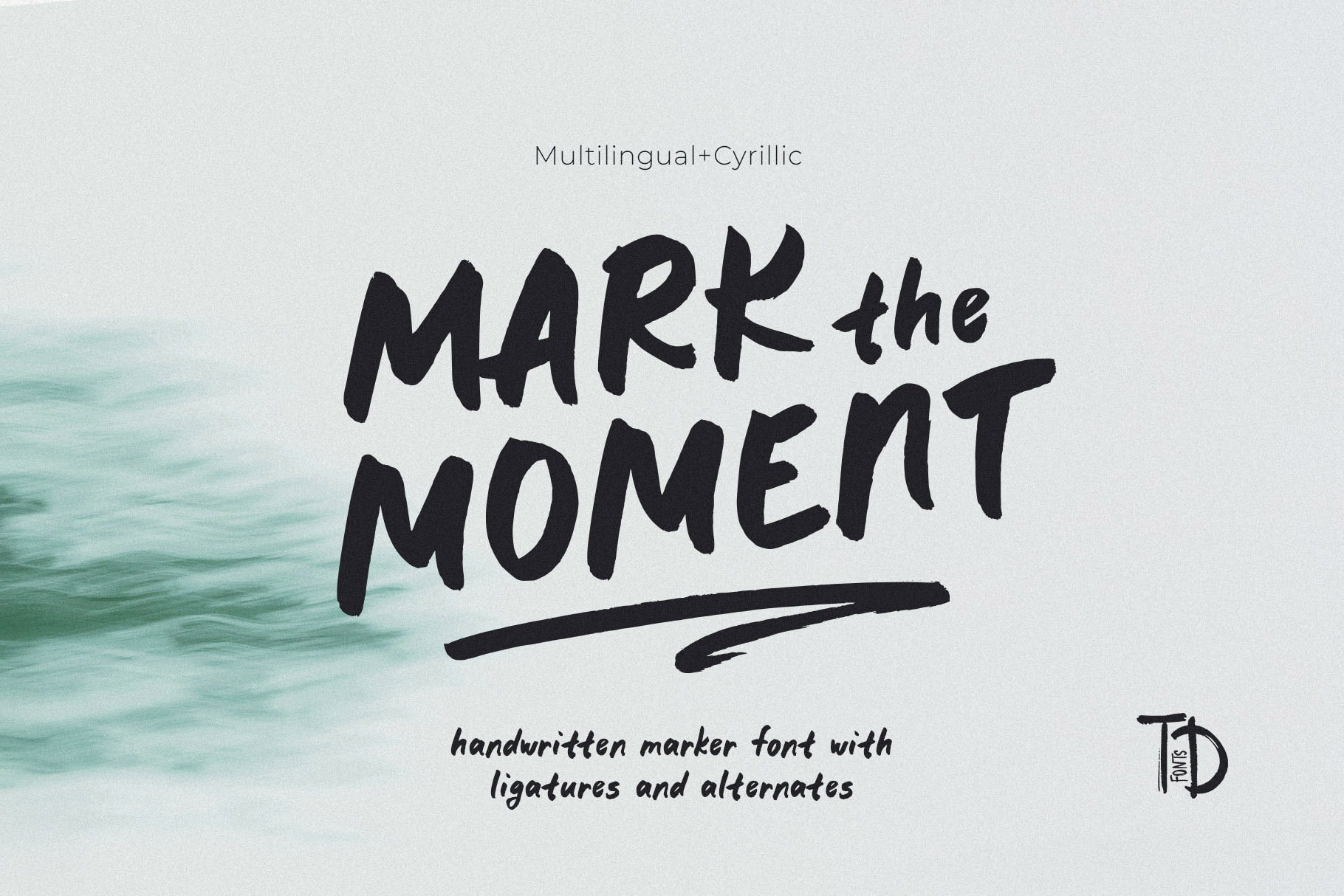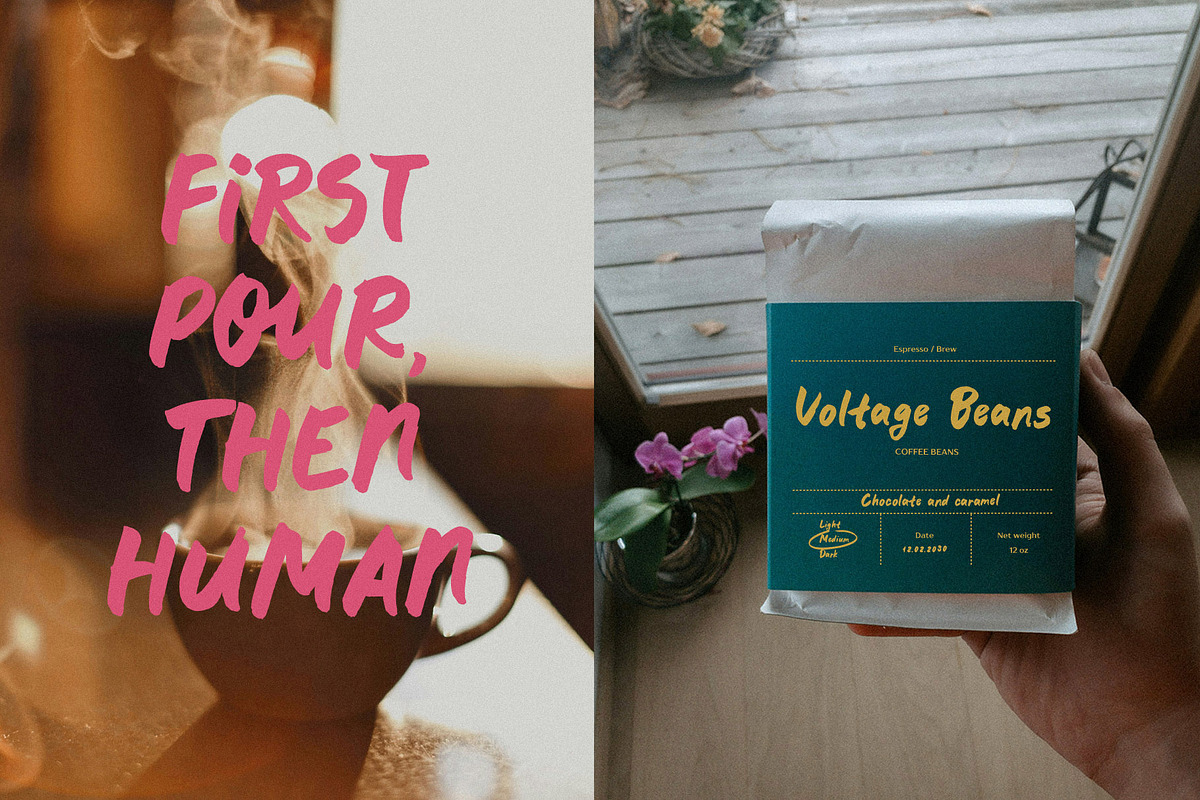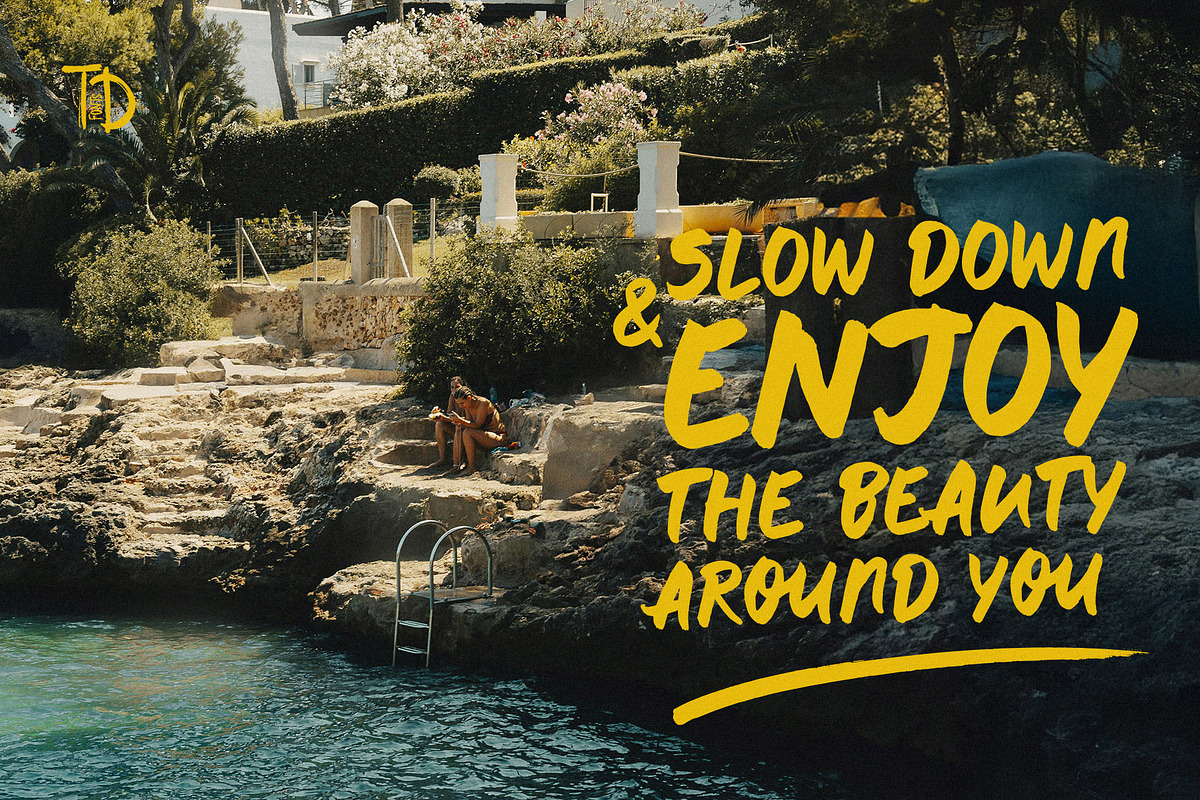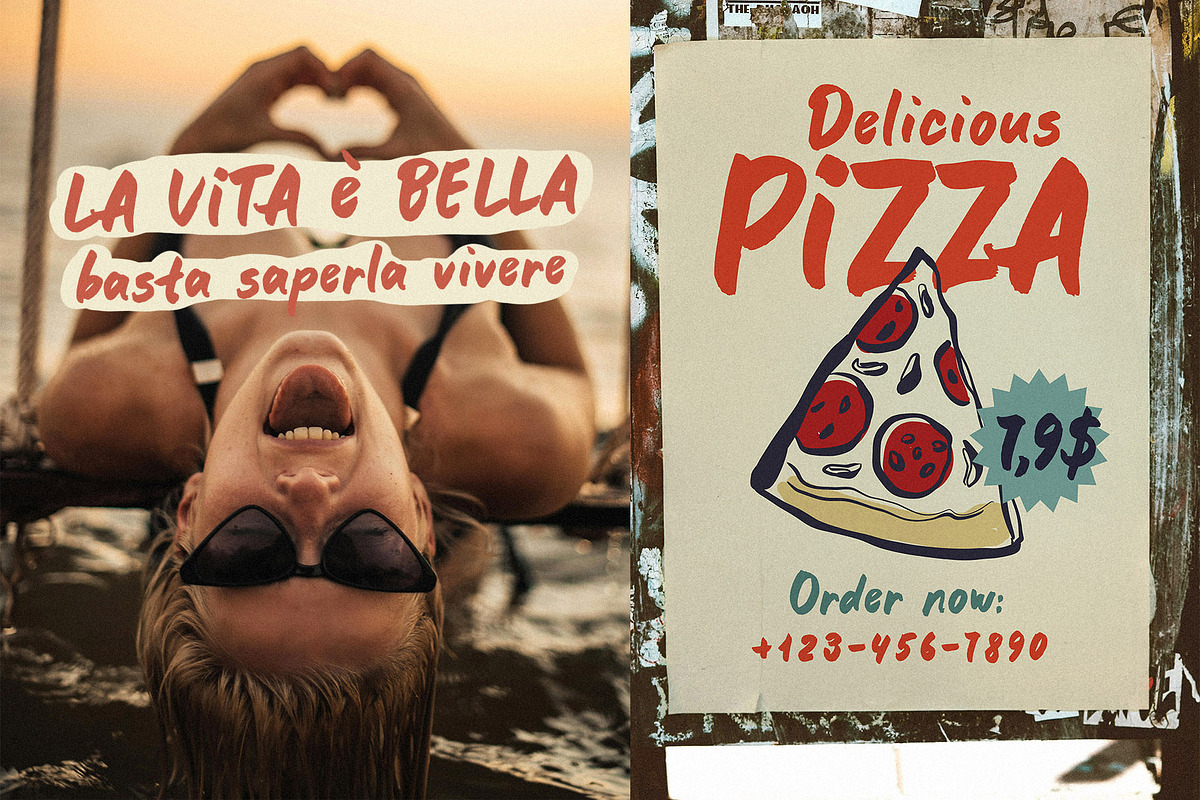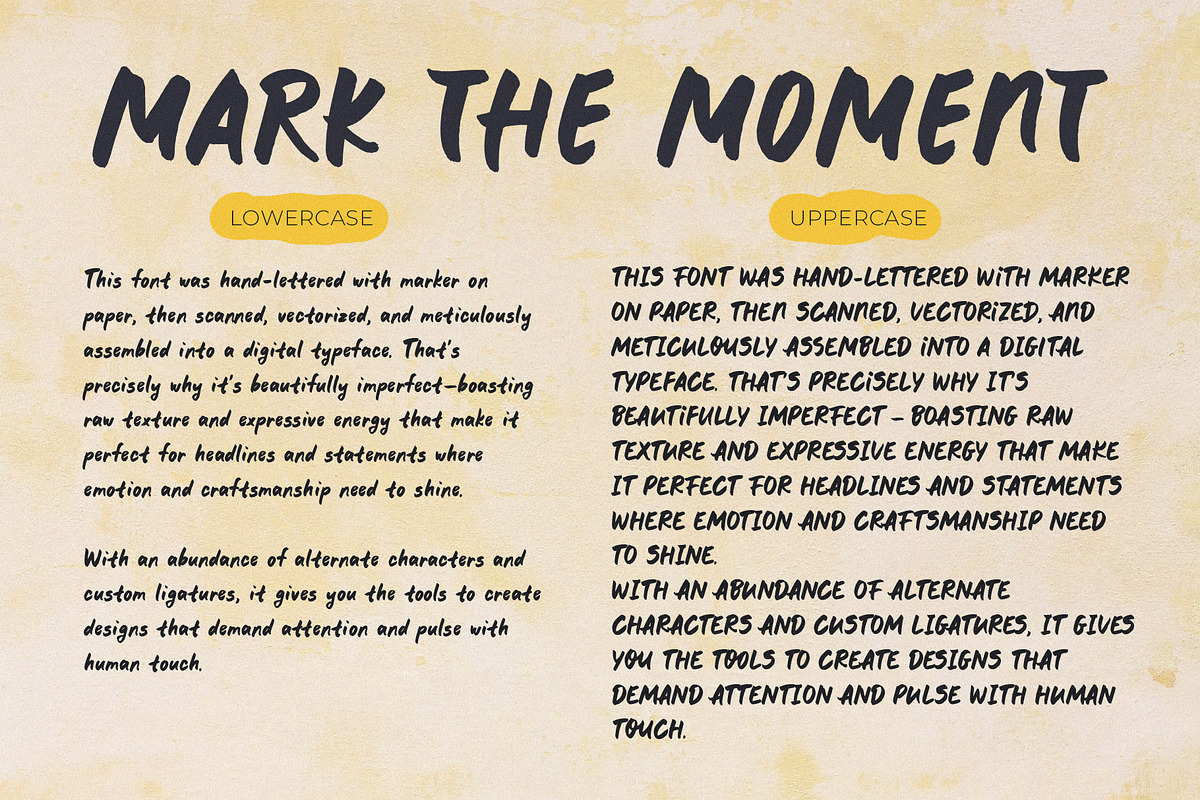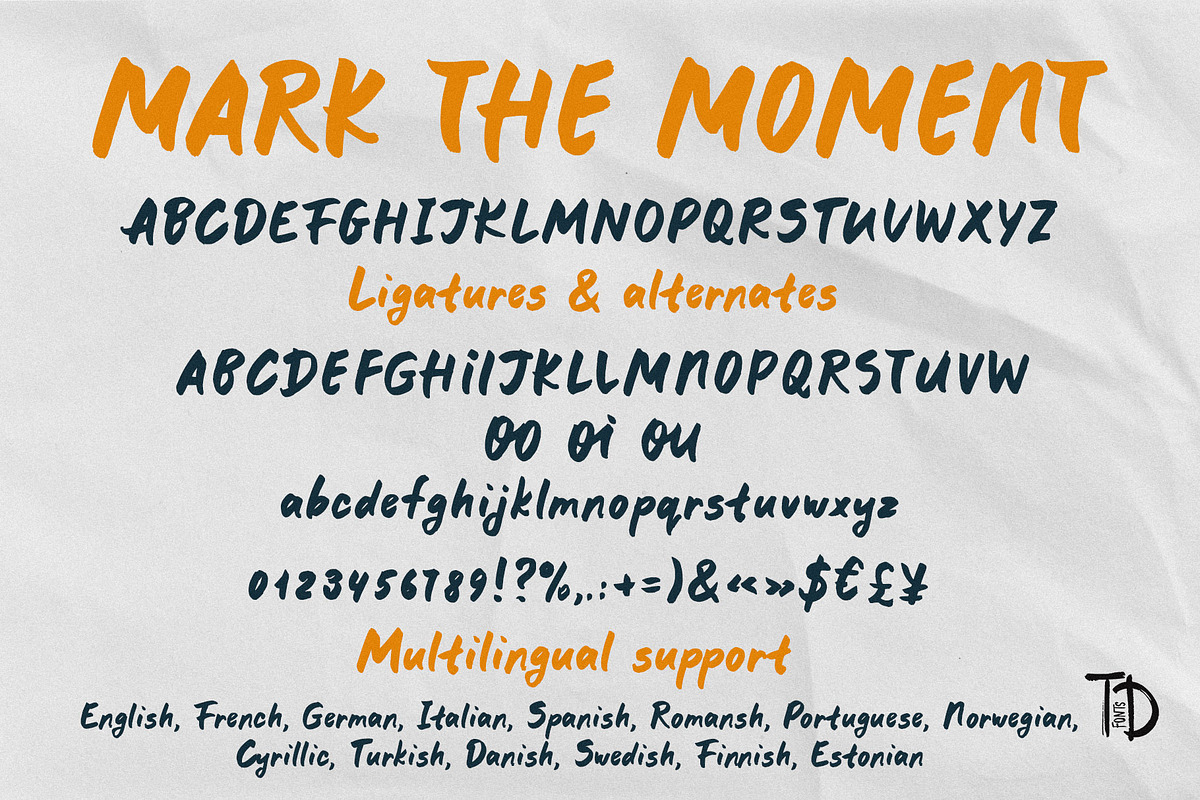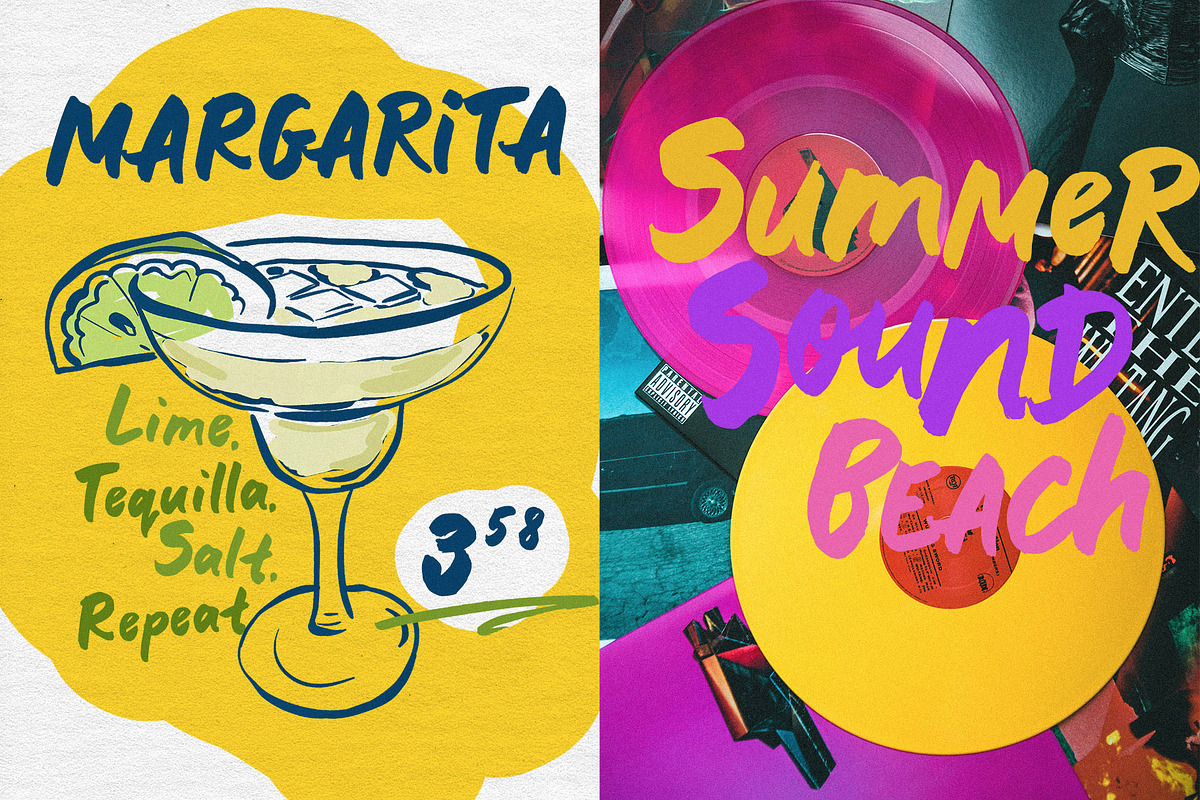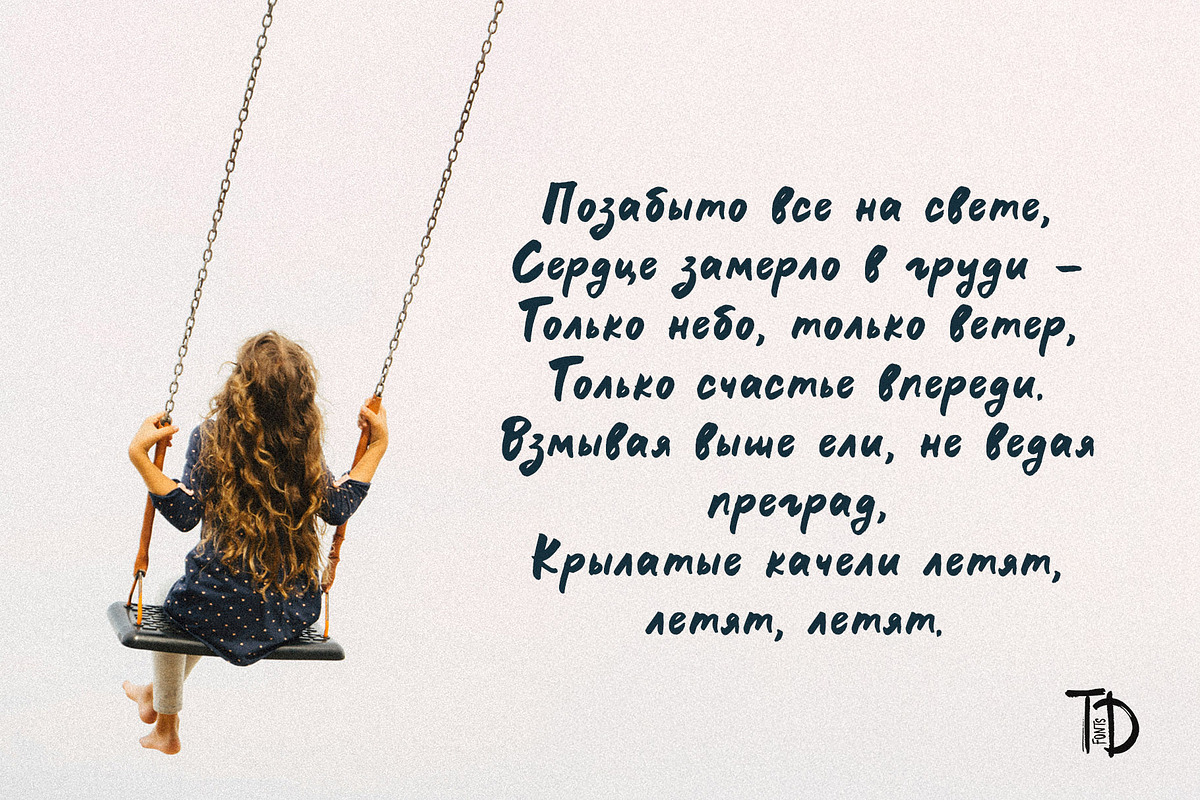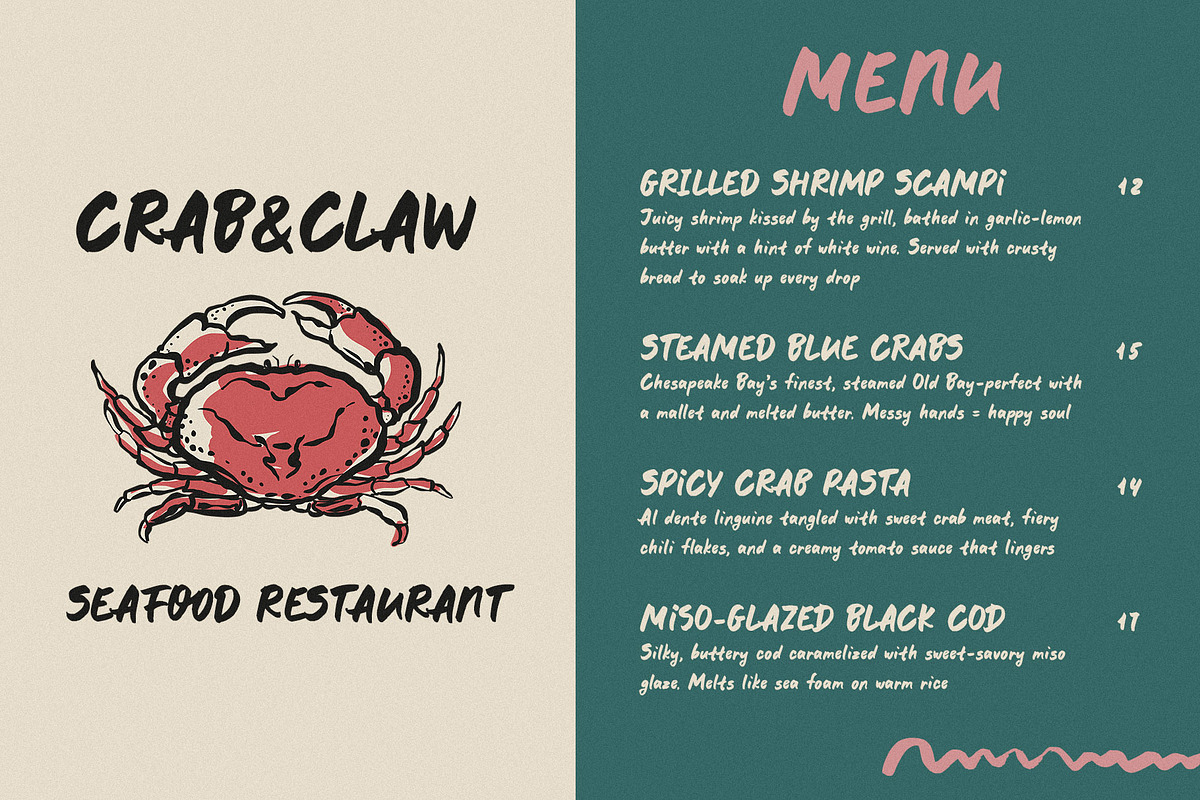
Marker font Mark the moment by hand
Mark the Moment is a truly handwritten font, written with a real marker on paper, then carefully scanned, vectorized, and assembled into a professional typeface. This process preserves its beautifully imperfect texture and expressive strokes, making it ideal for headlines, bold statements, and designs that demand emotion and authenticity.
With a wide range of alternates and ligatures, this font allows you to create eye-catching, dynamic compositions that feel organic and personal.
With multilingual support, Mark the Moment is ready to make an impact worldwide. Whether you're designing for a modern brand, an eco-friendly product, or attention-grabbing social media content, this font will add an unmistakable human touch to your work.
Perfect for Bold & Expressive Designs Mark the Moment is a versatile choice for:
Logos & Branding – Give your brand a bold, handcrafted personality.
Posters & Packaging – Create designs that stand out with a natural, artistic touch.
Social Media & Marketing – Enhance your visuals with a human feel.
Editorial & Book Covers – Add character to magazines, book titles, and more.
Film, Music & Advertising – A great choice for creative promotions.
MARK THE MOMENT has extensive language support, it includes English, French, German, Italian, Spanish, Portuguese, Danish, Norwegian, Swedish, Finnish, Estonian, Romansh, Turkish, Cyrillic. Need to know if your language is supported? Type any words in the text box below and see if all characters you need are there.
Mark the moment. Make it unforgettable.